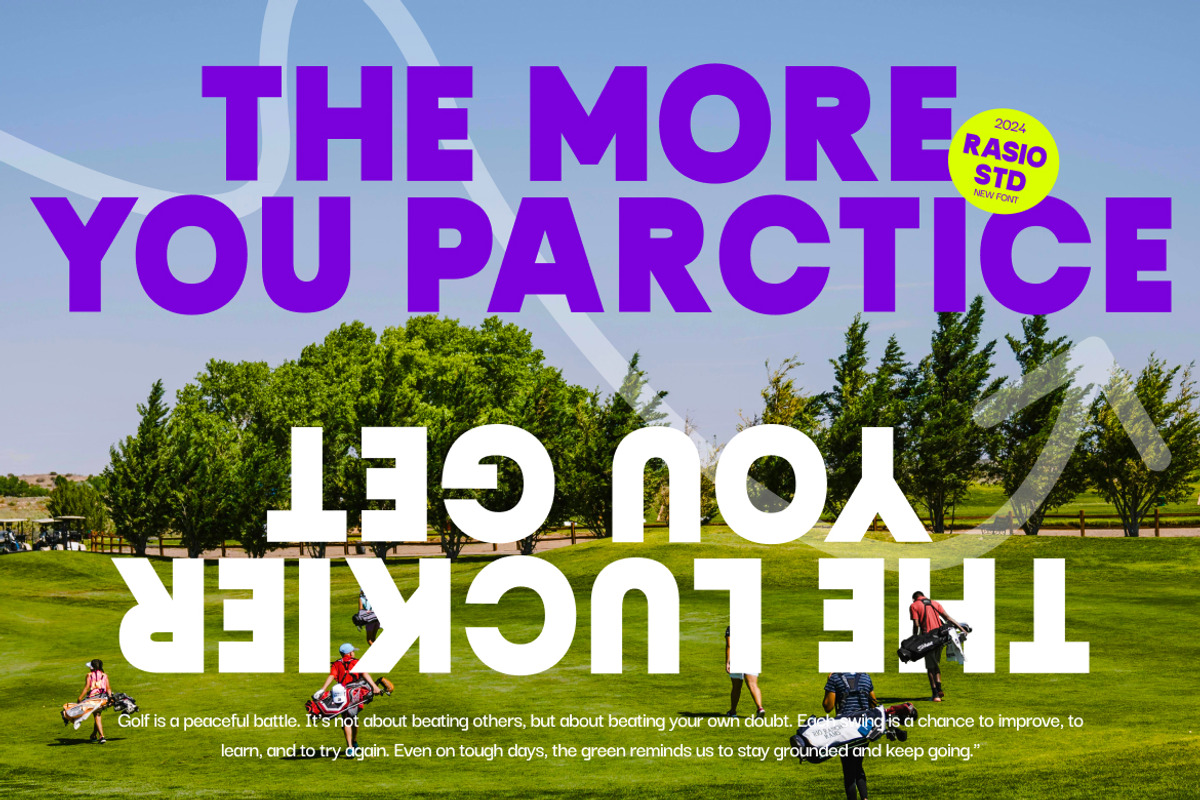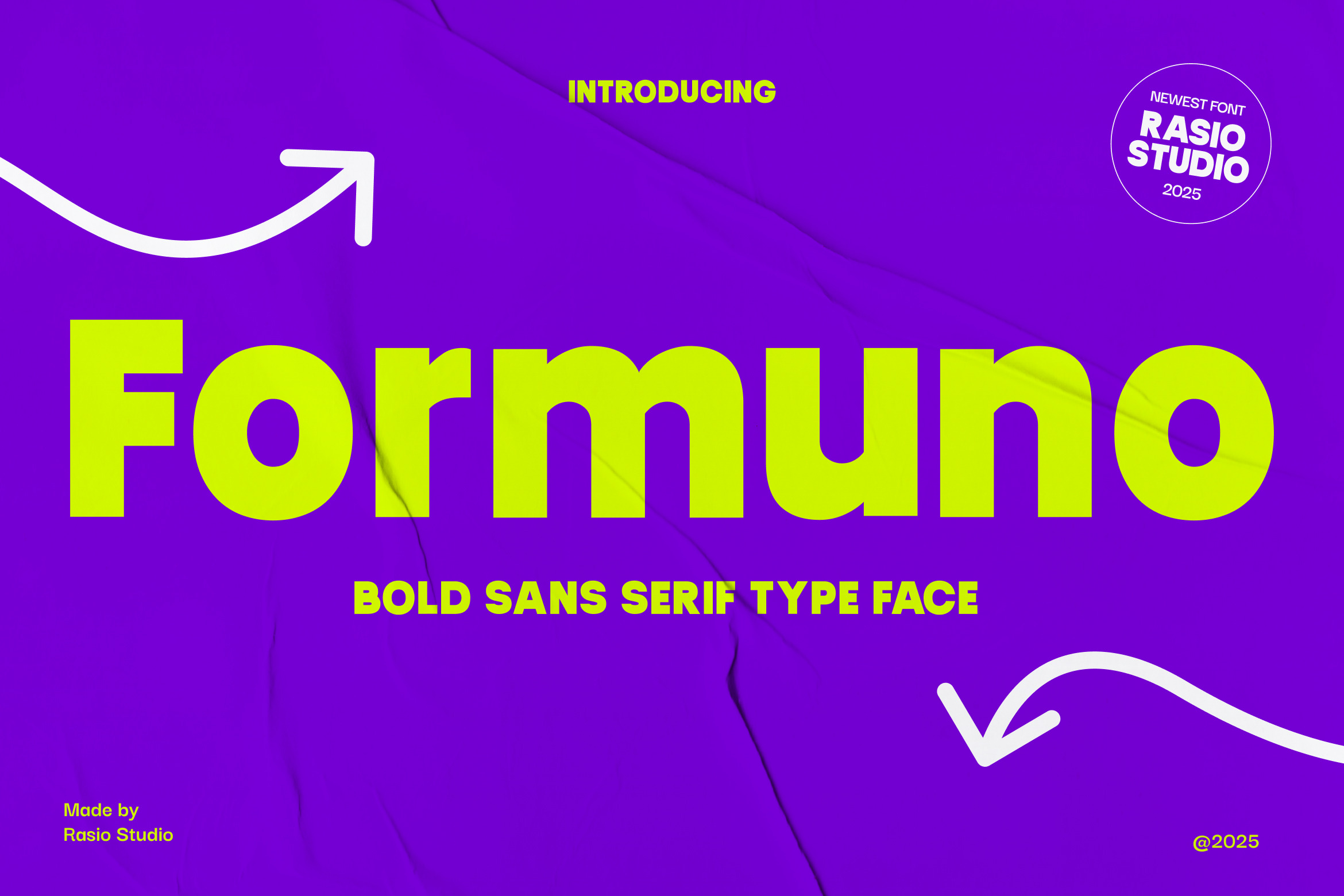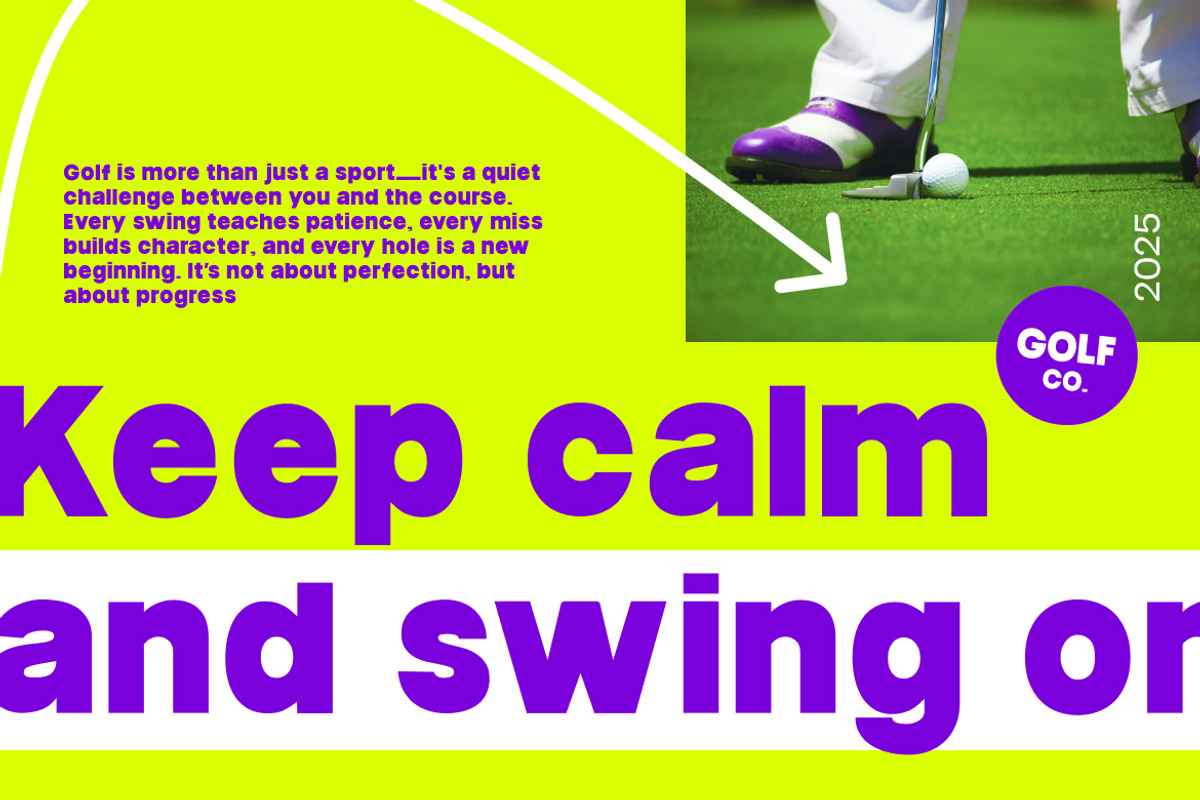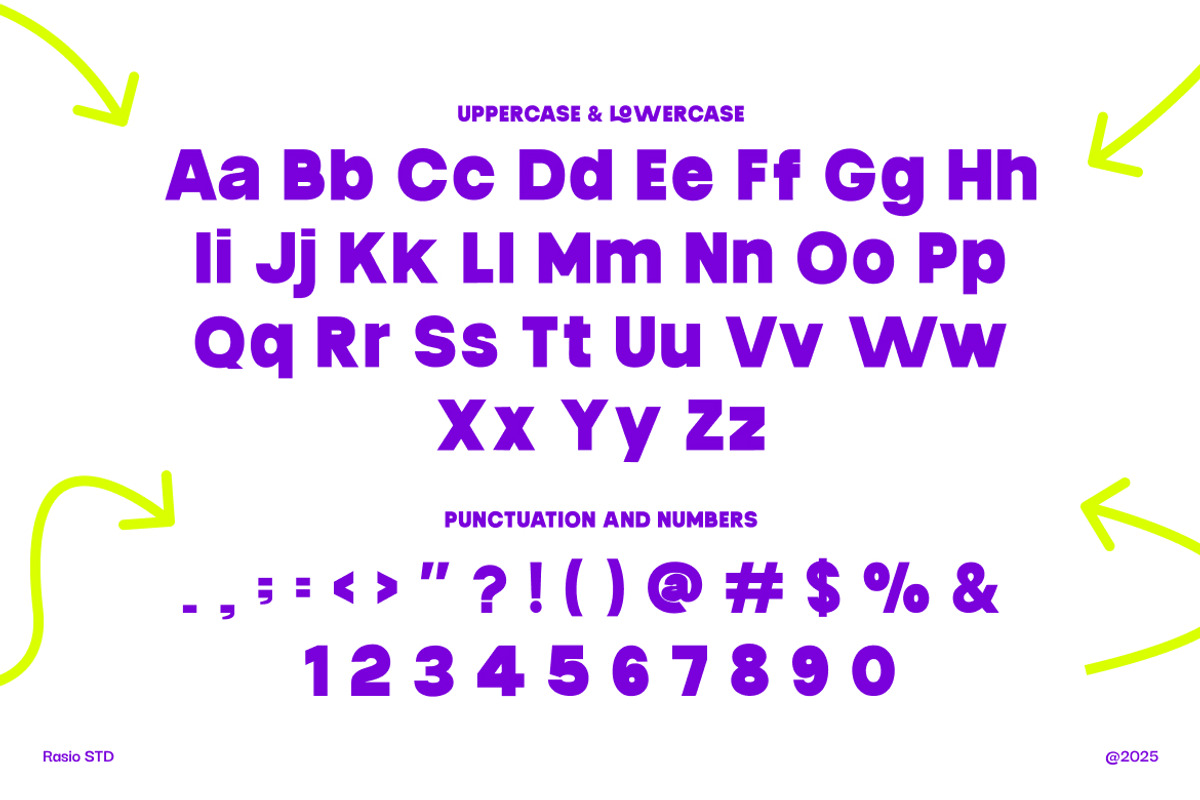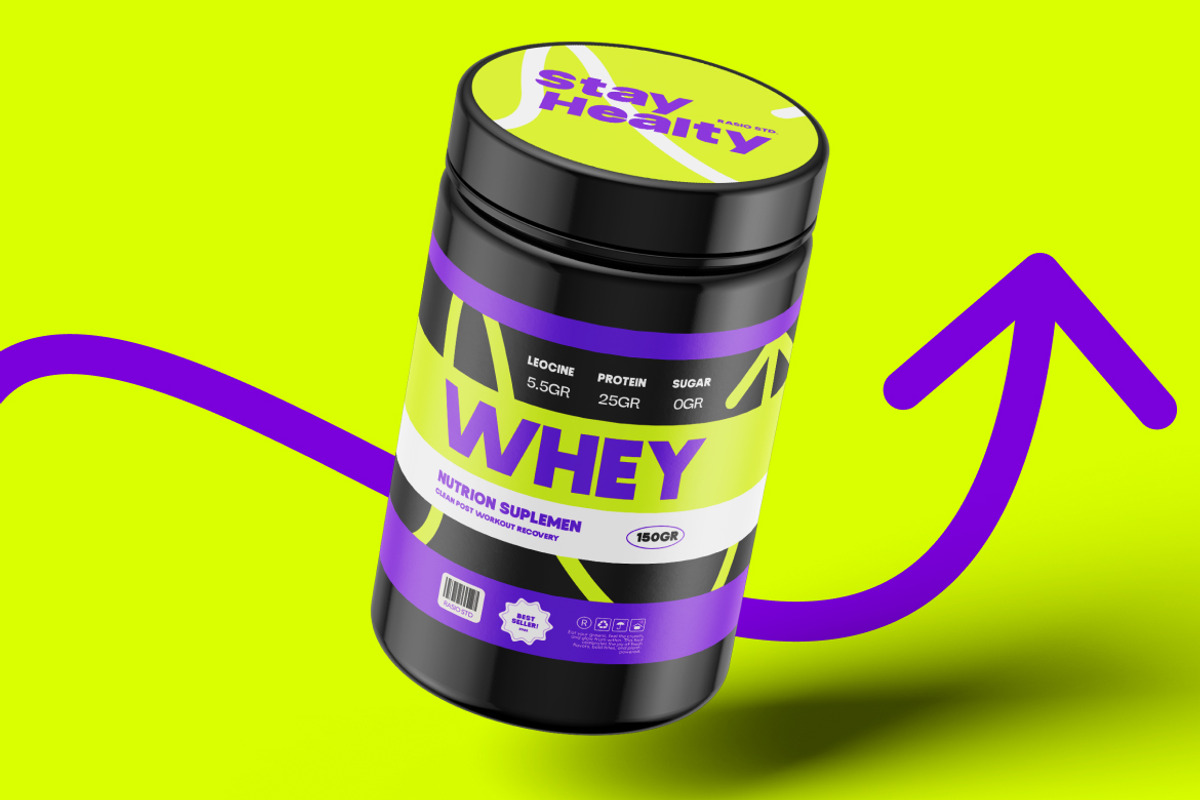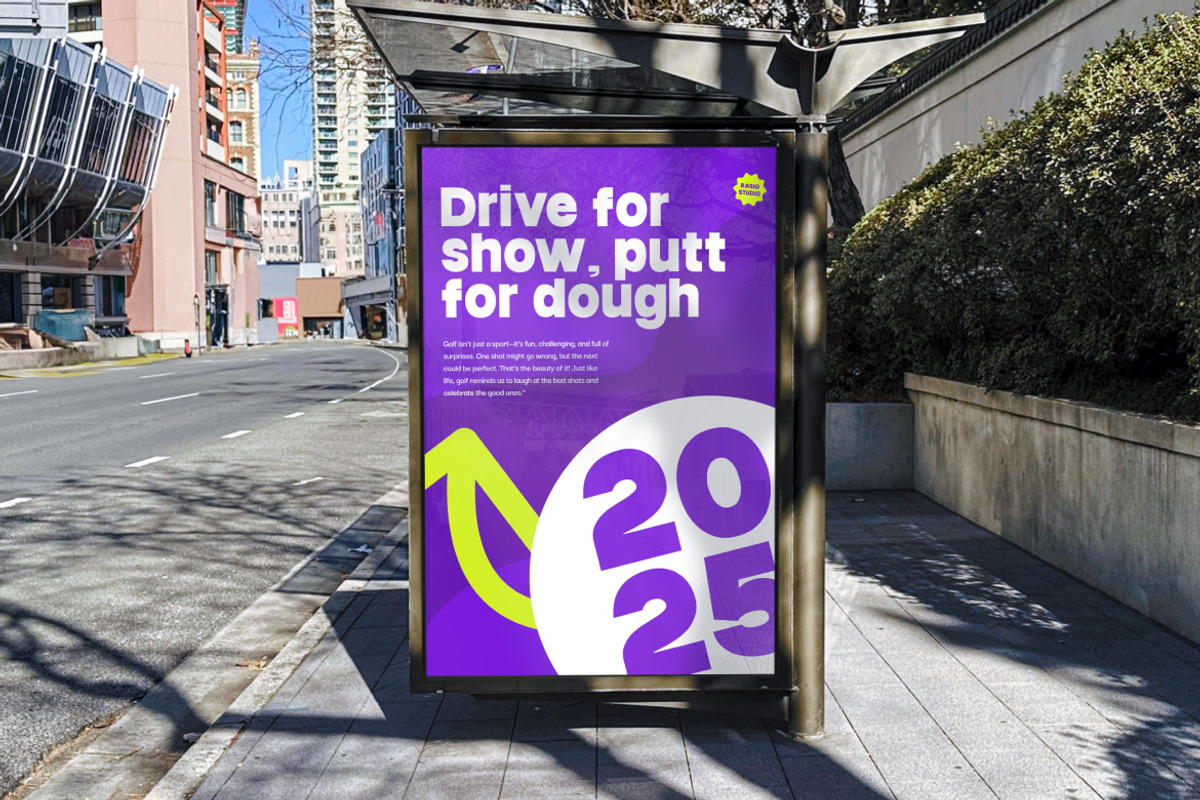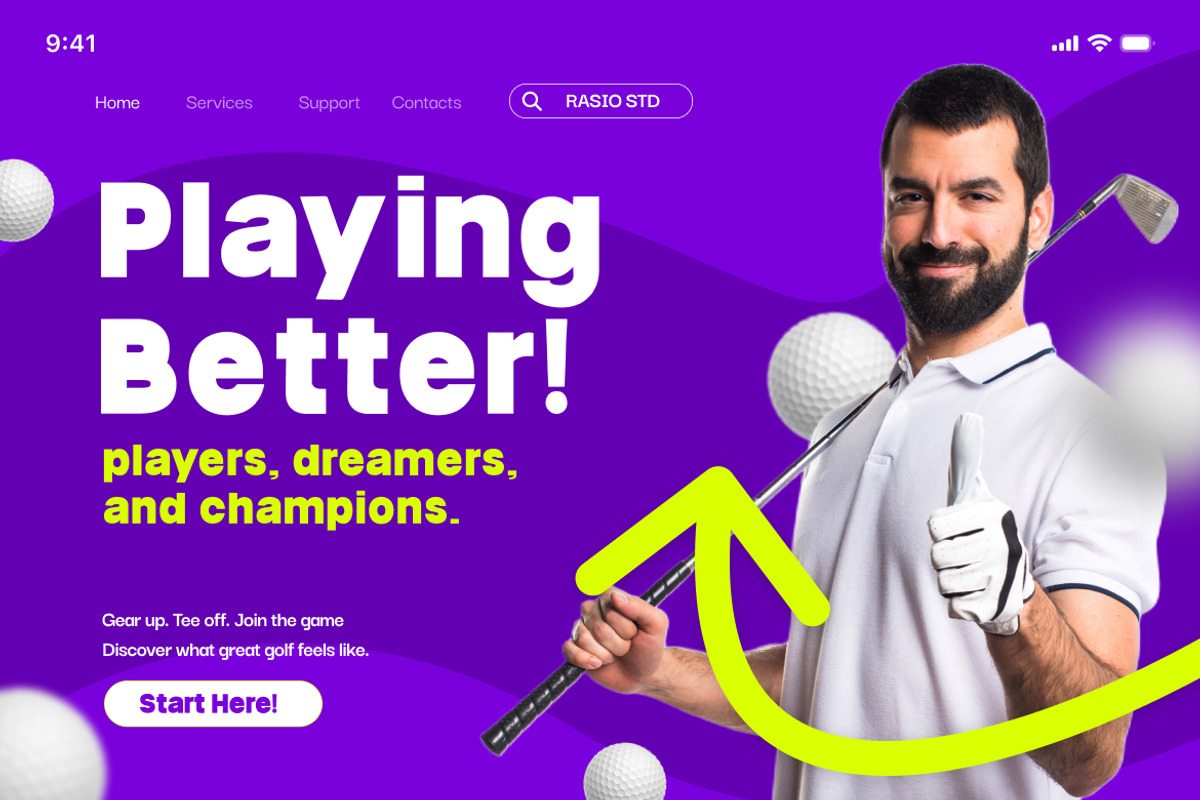
Formuno Bold Sans Serif Font
Furmuno is a bold and modern sans serif font designed for clean, impactful typography. It features strong geometric shapes and thick, confident strokes that make it ideal for headlines, logos, posters, packaging, and digital graphics. The typeface includes a full uppercase and lowercase character set, numerals, punctuation, and multilingual support
Furmuno’s bold weight and geometric structure make it highly relevant for designers and brands that want their message to stand out with confidence and clarity. It works beautifully for impactful headlines, brand identities, printed posters, product packaging, banners, social media visuals, web interfaces, editorial layouts, and any creative project that benefits from a strong visual presence and modern typographic voice
- Bold geometric sans serif with strong visual impact
- Clean letterforms with even stroke weight for modern appeal
- Rounded curves and softened angles to balance strength with friendliness
- Optimized kerning and spacing for readability in headlines or short texts
- Versatile design suited for digital and print media applications
- Bold brand identity systems that balance confidence and clarity
- UI/UX interfaces for tech products, dashboards, and mobile apps
- Editorial layouts for modern magazines and clean book designs
- Eye-catching product packaging and minimalist label systems
- Social media kits and digital marketing visuals
Make bold moves with Furmuno display font built for impact and clarity